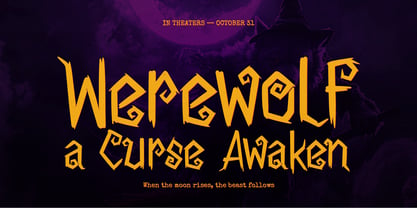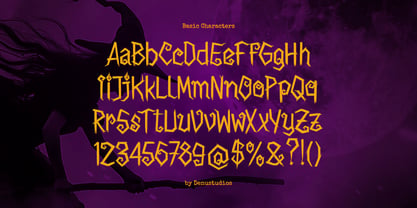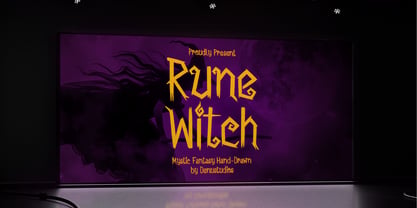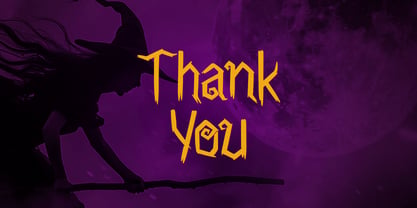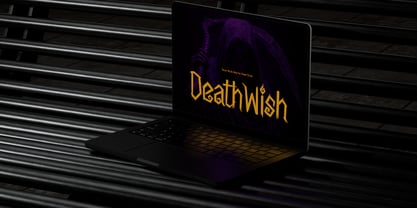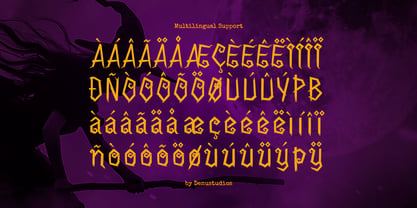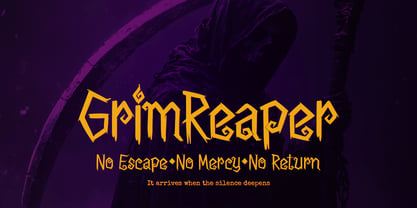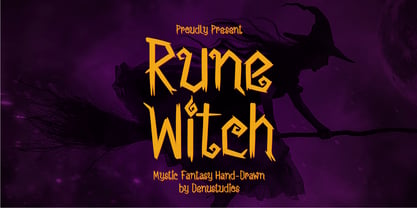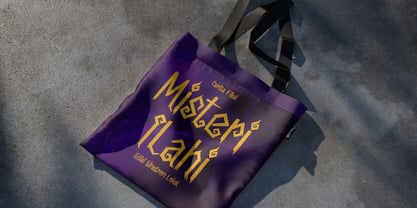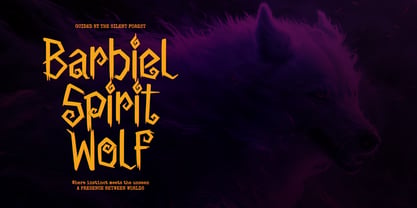
Rune Witch
by Denustudio
The Rune Witch Font Family was designed by Dede Nugraha and published by Denustudio. Rune Witch contains 1 styles. More about this family
Rune Witch | Fantasy Hand Drawn, from Denustudios, suitable for any projects such as: logos, branding projects, homeware designs, product packaging, mugs, quotes, posters, shopping bags, t-shirts, book covers, name card, invitation cards, greeting cards, label, photography, watermark, special events, and all your other lovely projects that need Hand Drawn a taste.
Designers: Dede Nugraha
Foundry: Denustudio